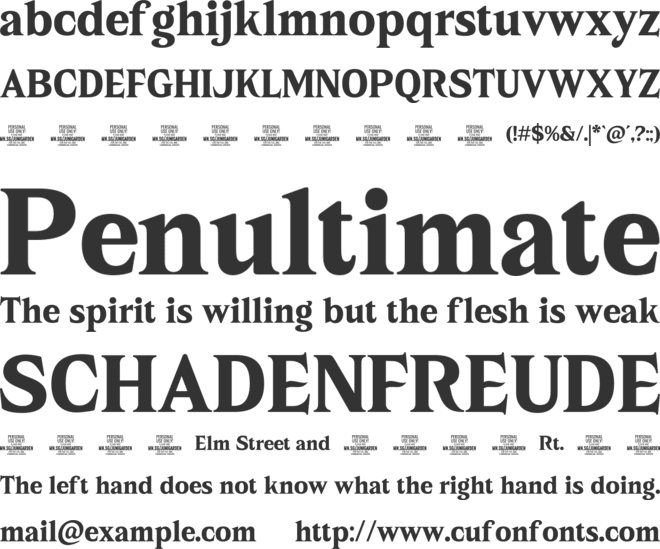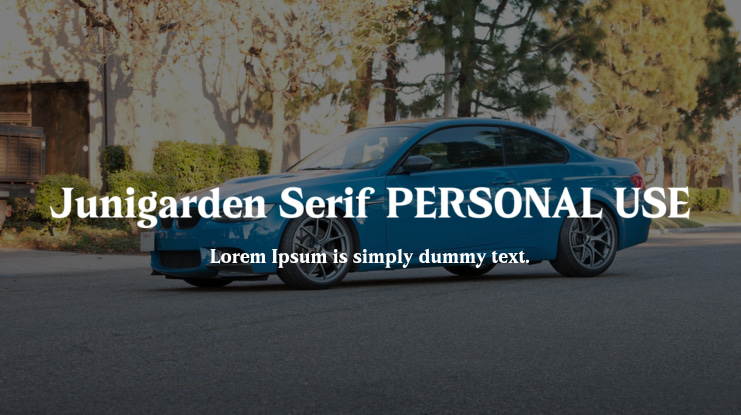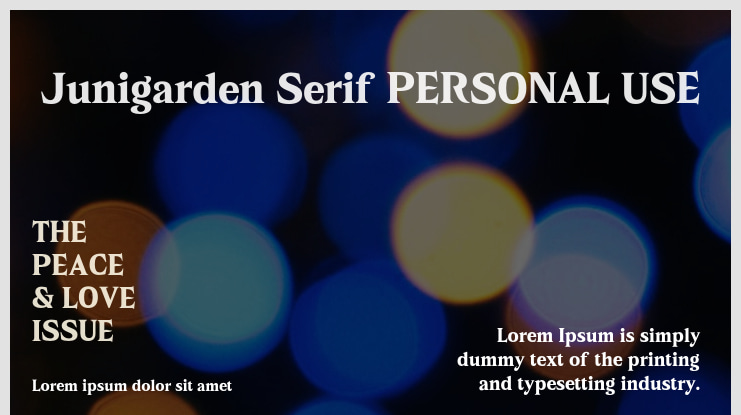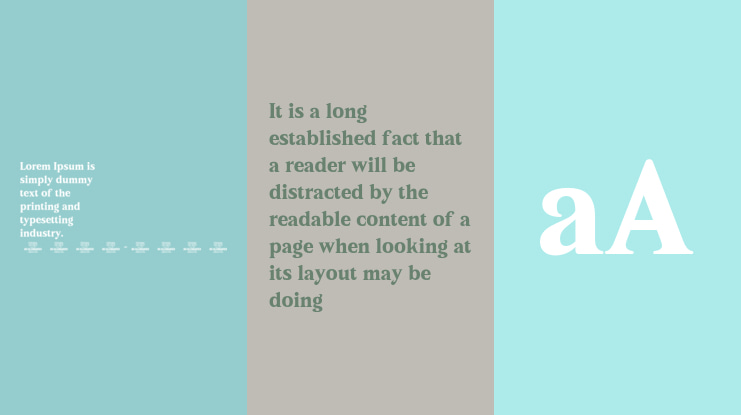
Junigarden Serif PERSONAL USE Font Family
Mans Greback
The Junigarden Swash evokes a warm, nostalgic feeling, blending vintage elegance with flowing swashes that add a decorative flair. The font strikes the perfect balance between boldness and delicacy. Use an underscore "_" anywhere in a word to create a swash effect, for example, "Pri_nce". Multiple underscores create different swashes, such as "Am_______ore".